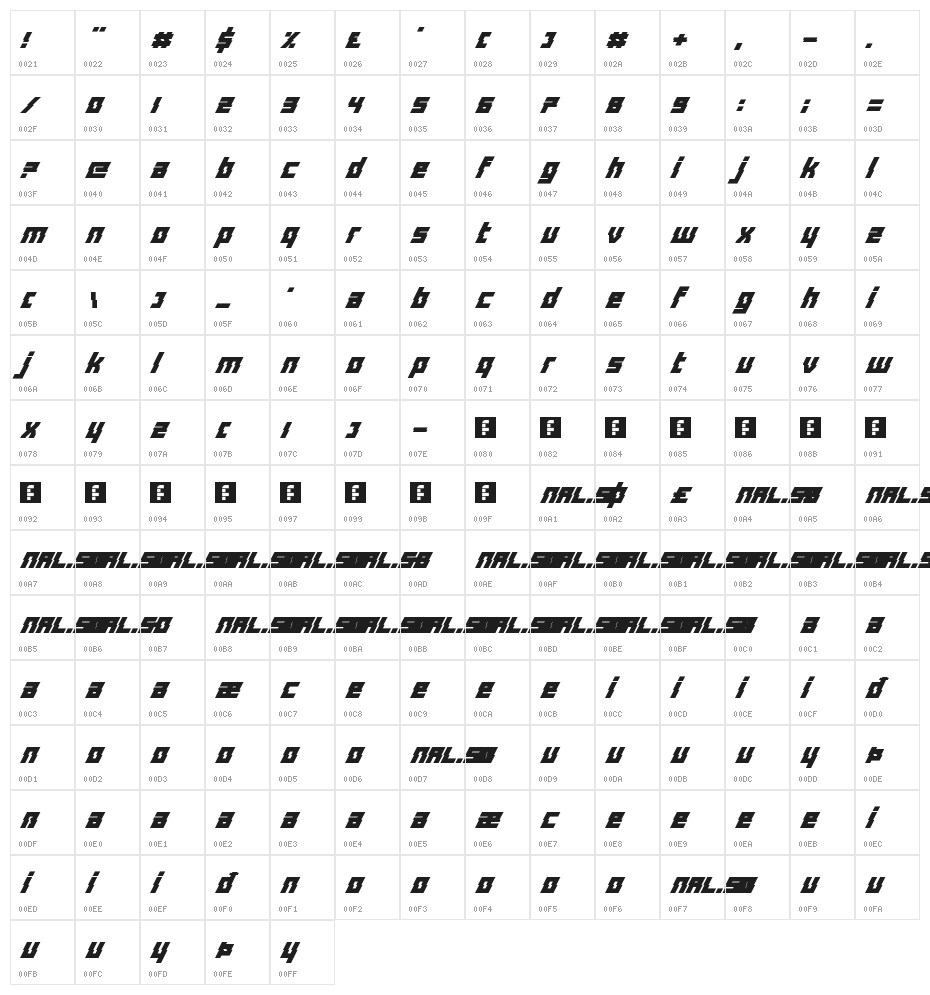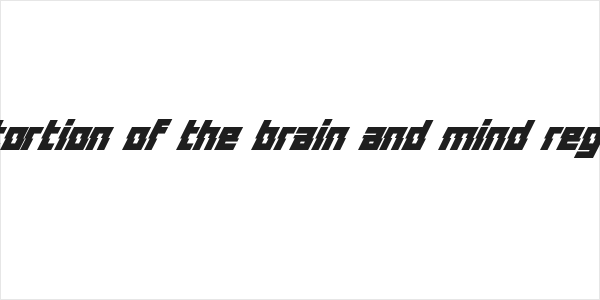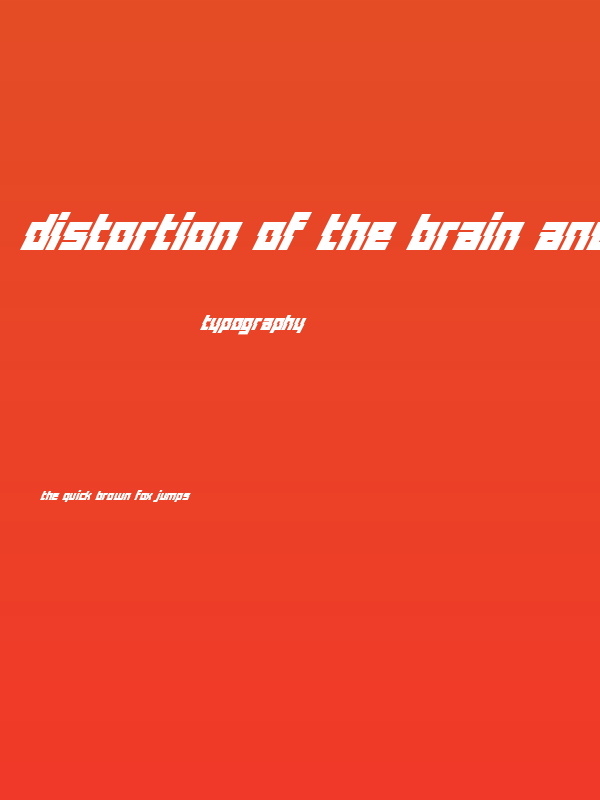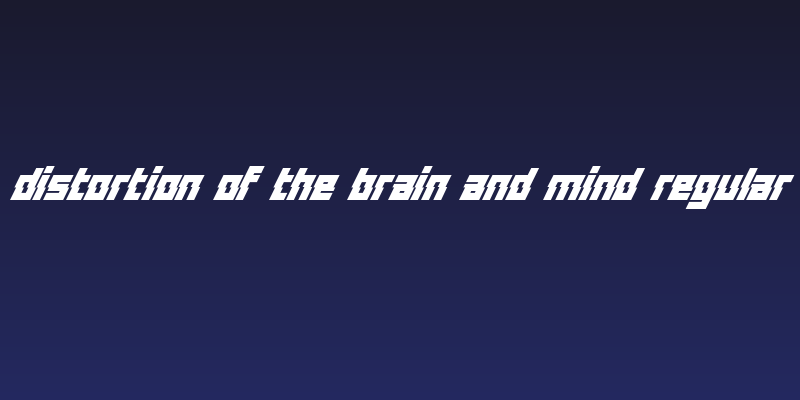
Distortion Of The Brain And Mind Regular Font
Distortion Of The Brain And Mind Regular Description
This font features a bold, angular design with a futuristic and dynamic appearance. The characters are sharply cut with distinct edges, creating a sense of movement and energy. The uppercase and lowercase letters maintain a consistent style, with a slight slant that adds to the forward momentum of the text. The numerals and special characters follow the same angular theme, ensuring uniformity across all elements. The overall look is striking and modern, making it suitable for projects that require a strong visual impact.
| Proposed Projects | Ideal for sci-fi themed designs, video game titles, posters, and branding that requires a modern and energetic look. |